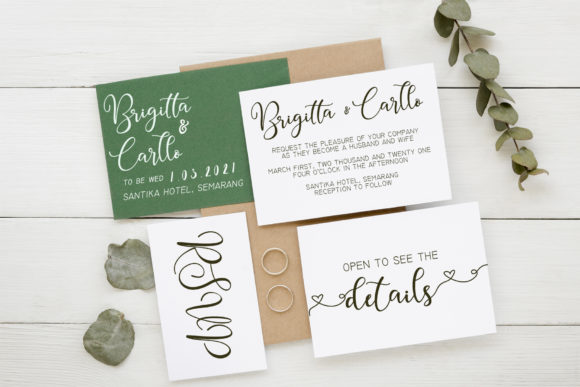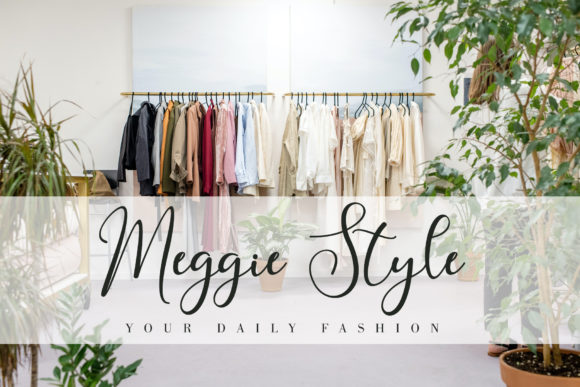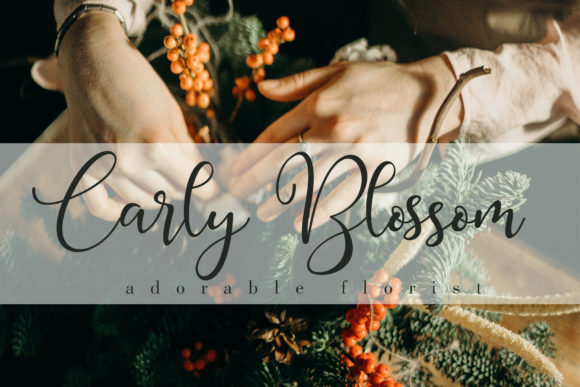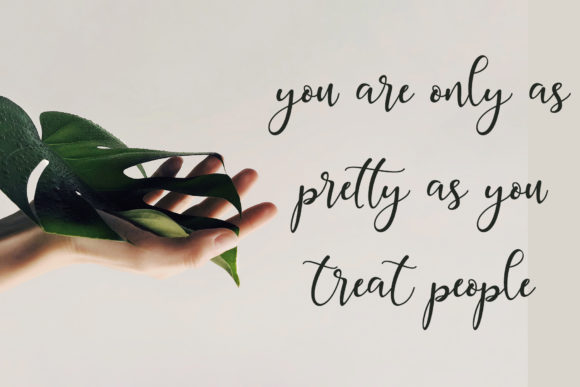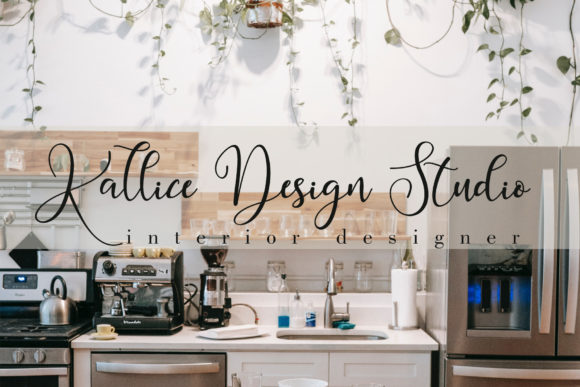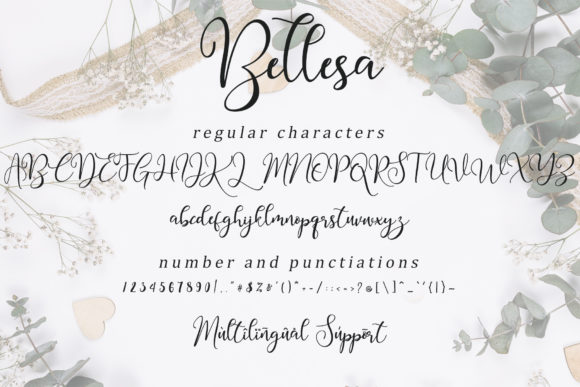
The Perfect Blend of Handwriting and Elegance: Bellesa Font
Have you ever found yourself scribbling down notes in your favorite journal, only to wish you could capture the exact same flair on a professional design project? That’s exactly what happened to me last week when I stumbled upon the stunning Bellesa Font. As a designer, I’ve always been on the lookout for fonts that evoke a sense of personality and style, and Bellesa Font did not disappoint.
With its beautiful swashes and ligatures, Bellesa Font is perfect for adding a handwritten touch to wedding invitations, thank you cards, quotes, and logos. What sets it apart is its PUA encoding, making it easy to access all the glyphs and swashes you need to create stunning designs. Whether you’re a seasoned designer or just starting out, Bellesa Font is a valuable addition to your toolkit.
Bellesa Font Key Features
- Unique Characteristics: This font features a unique, modern aesthetic with clean lines and elegant curves, making it perfect for use in fashion, beauty, and lifestyle branding.
Bellesa Font Review
As a designer, I was excited to dive into the Bellesa Font and see what it had to offer. Here’s my honest review.
- ✨ Elegant and sophisticated design: The Bellesa Font has a beautiful, refined aesthetic that’s perfect for luxury brands, high-end fashion, and other premium industries.
- ✨ Highly legible: The font is well-designed for readability, making it easy to use in body copy, headlines, and even digital interfaces.
- ✨ Stylish alternates: The font comes with a range of stylish alternates, including swashes, ligatures, and ornaments, which can add an extra touch of elegance to your designs.
- ⚠️ Limited language support: Unfortunately, the Bellesa Font only supports Latin-based languages, which may limit its use for designers working with other languages.
- ⚠️ No Cyrillic support: This may be a drawback for designers working with Russian or other Cyrillic-based languages.
- ⚠️ Some glyphs may require manual adjustment: A few glyphs, such as the ampersand and the slash, may require manual adjustment to achieve the desired look.
Overall, I think the Bellesa Font is a beautiful and sophisticated addition to any designer’s toolkit. While it may have some limitations, its elegant design and high legibility make it a great choice for premium brands and industries.
Tip: Use the Bellesa Font for headings and titles to add a touch of elegance to your designs.
Tip: Use the Bellesa Font in combination with bold or italic styles to create visually appealing text effects.
Tip: Use the Bellesa Font for titles and headings to create a consistent and professional look.
The Bellesa Font is suitable for a wide range of designs, including:
- Editorial and publishing designs